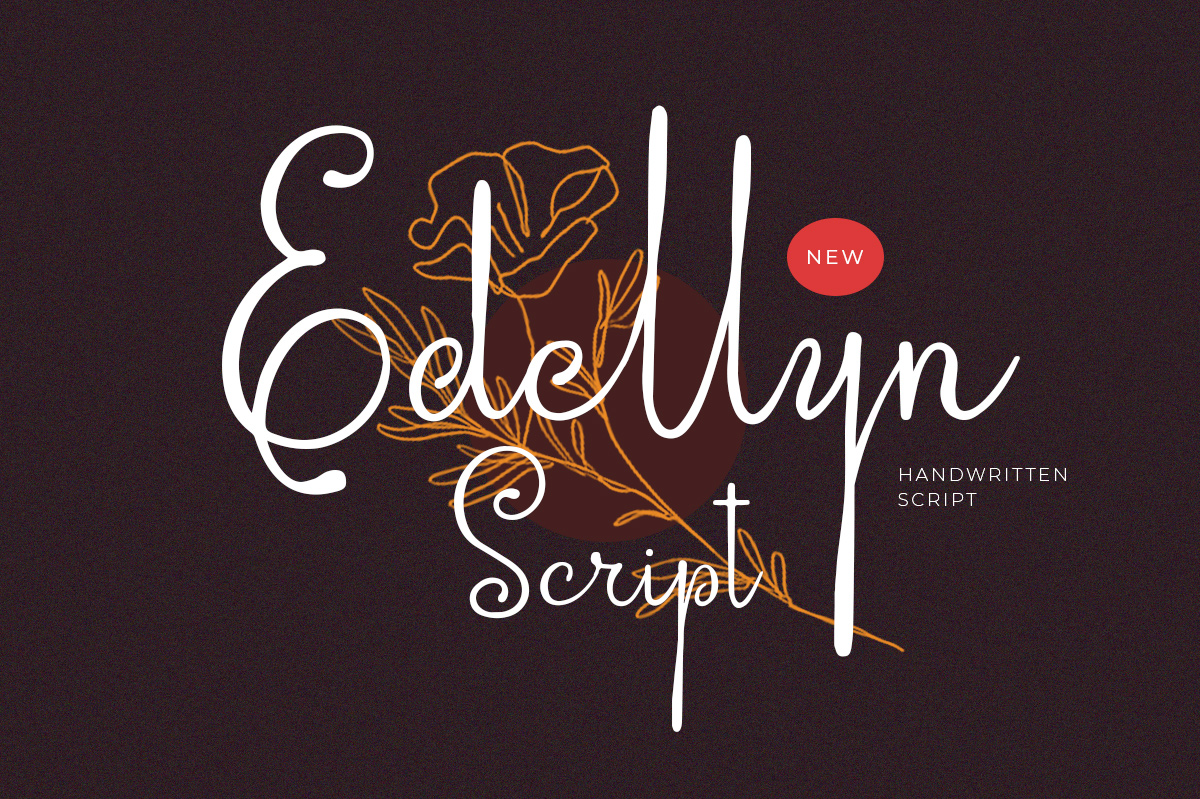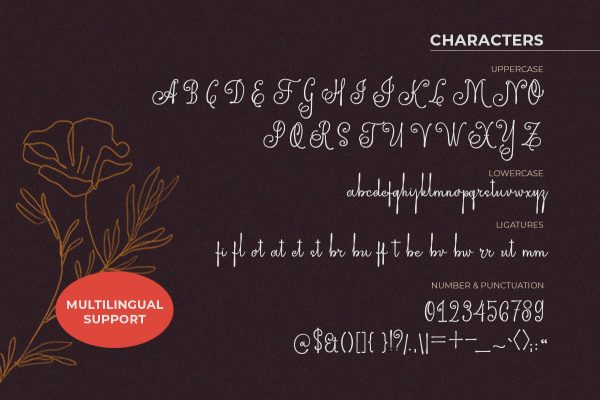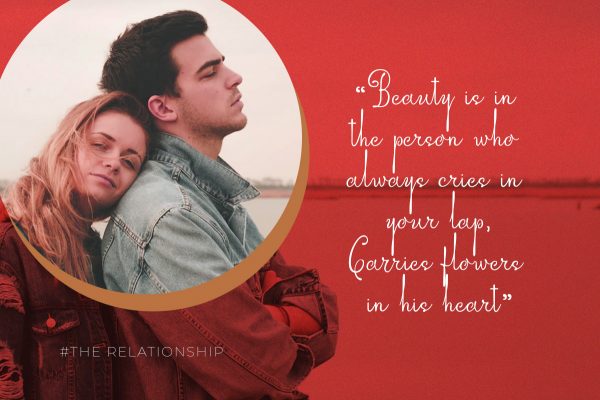
Edellyn Script, a modern script typeface. This collection of scripts is perfect for personal branding. As you can see, this typeface has beautiful and modern look which is perfectly made to be applied especially in headline, logotype, apparel, invitation, branding, packaging, wedding card, advertising etc.
Features :
- uppercase & lowercase
- numbers and punctuation
- multilingual
- alternates